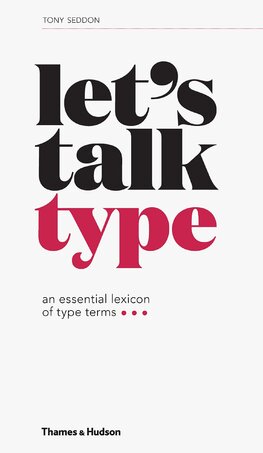
Let's Talk Type: An Essential Lexicon of Type Terms
An authoritative directory of over 300 type terms, from Axis to X-height
Why is Helvetica used for airport signs – and who designed Arial? What exactly is hand lettering? Which fonts tend to work best for emails, and what font is used on New York street signs?
Let’s Talk Type answers all of these questions and more in one easy-to-use typography primer. With a clear ‘What Is?’ and ‘Why Use It?’ approach to the subject, it will help the reader to identify fonts and to choose the perfect type treatment for their message. It also tells the stories behind famous fonts.
An essential companion for anyone who writes or designs – whether for the web or print – this authoritative resource will save readers the hassle of navigating badly informed web content, and provides a design-conscious approach to the subject.
Tony Seddon is a freelance designer, project manager and writer. He has written or co-written nearly ten books, among them Type Team, Greetings from Retro Design and The Evolution of Type, all published by Thames & Hudson.